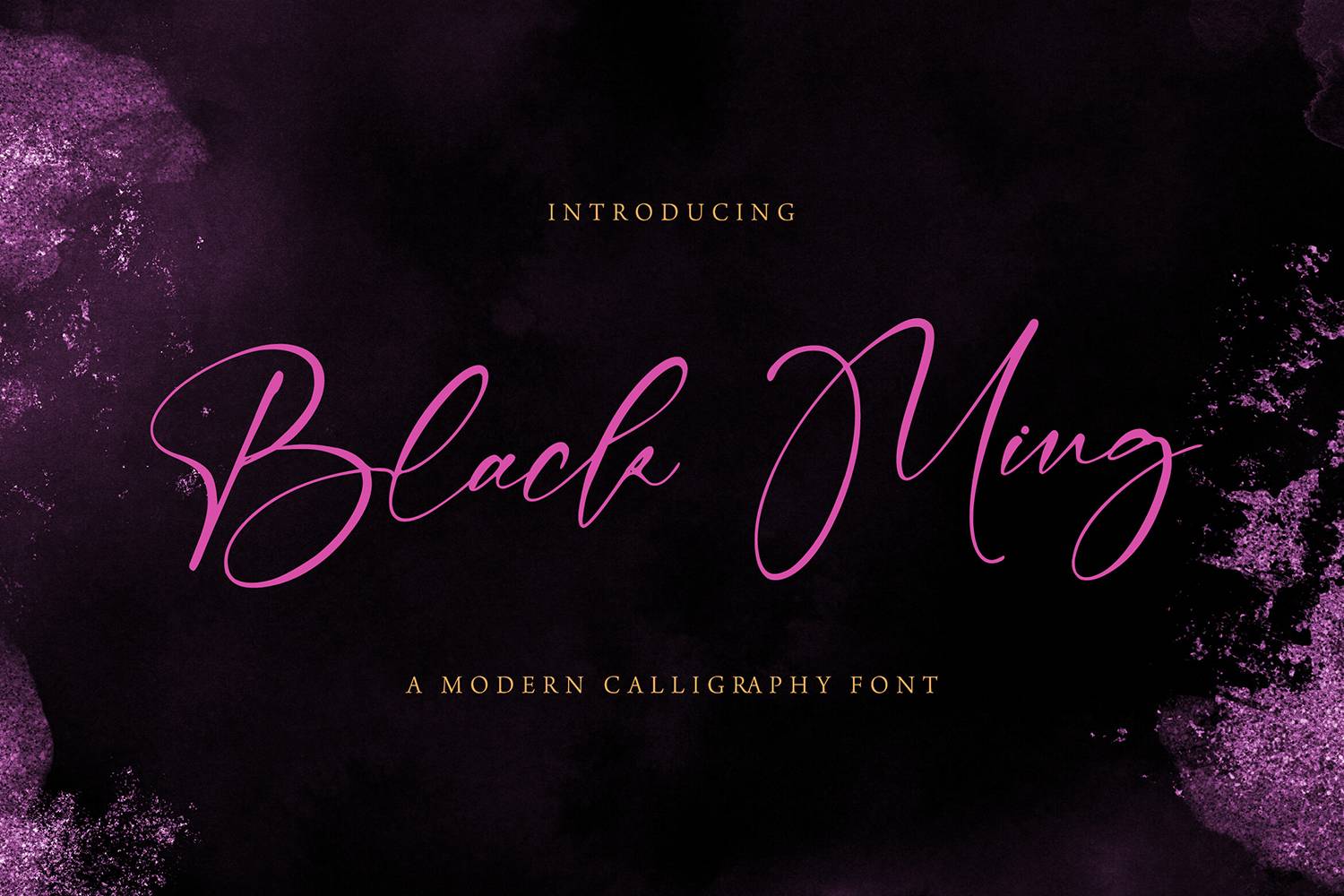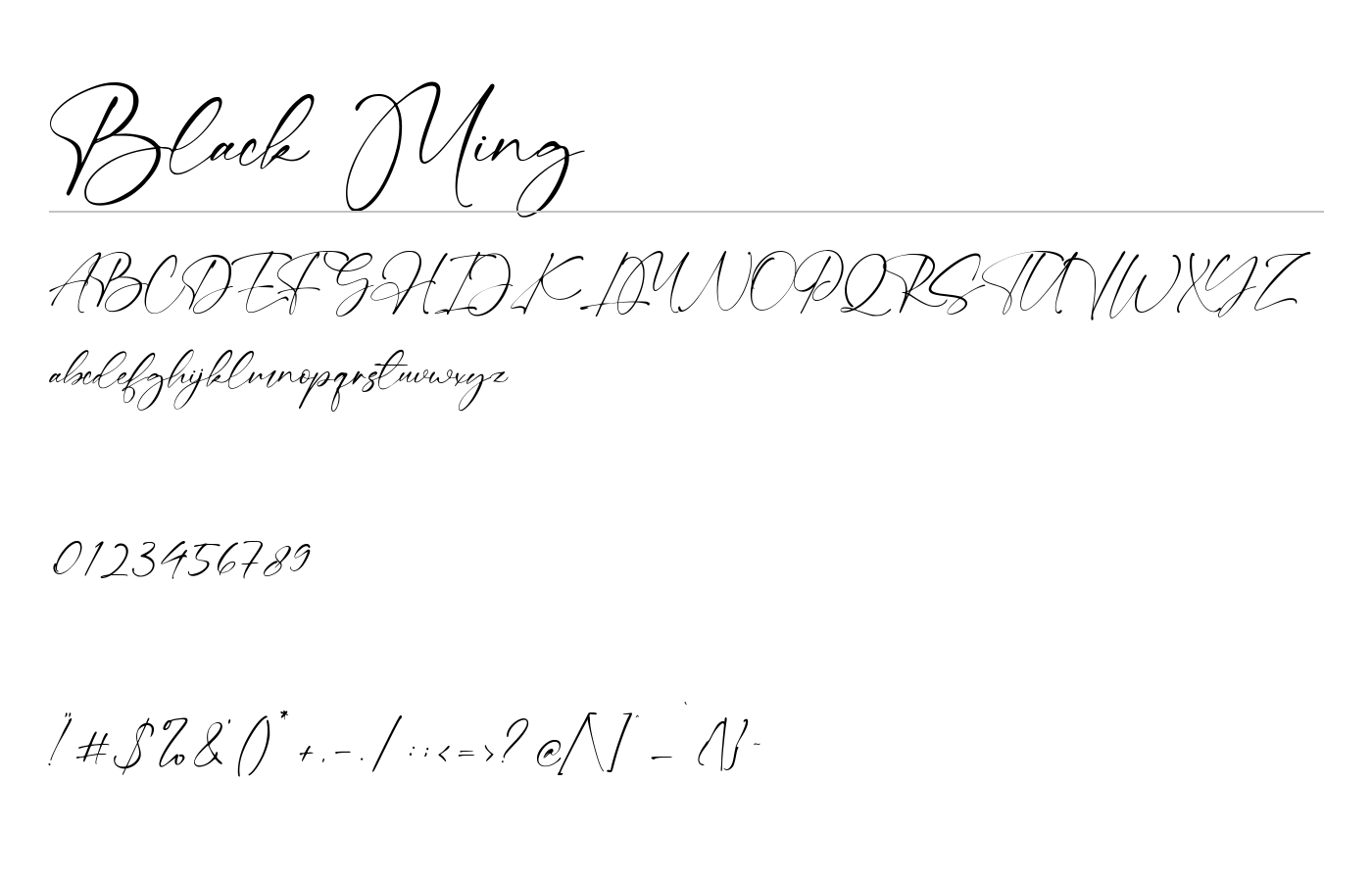
Black Ming is an elegant, thin script font with a delicate, handwritten feel characterized by flowing lines and graceful, narrow letterforms. Its light weight and high contrast strokes give it a refined, feminine touch, making it perfect for fashion branding, wedding invitations, and upscale logos where sophistication and warmth are desired. This font shines in contexts that benefit from a personal and artistic flair, adding charm and style to both print and digital designs.
Black Ming Font
| Font family | Black Ming Font |